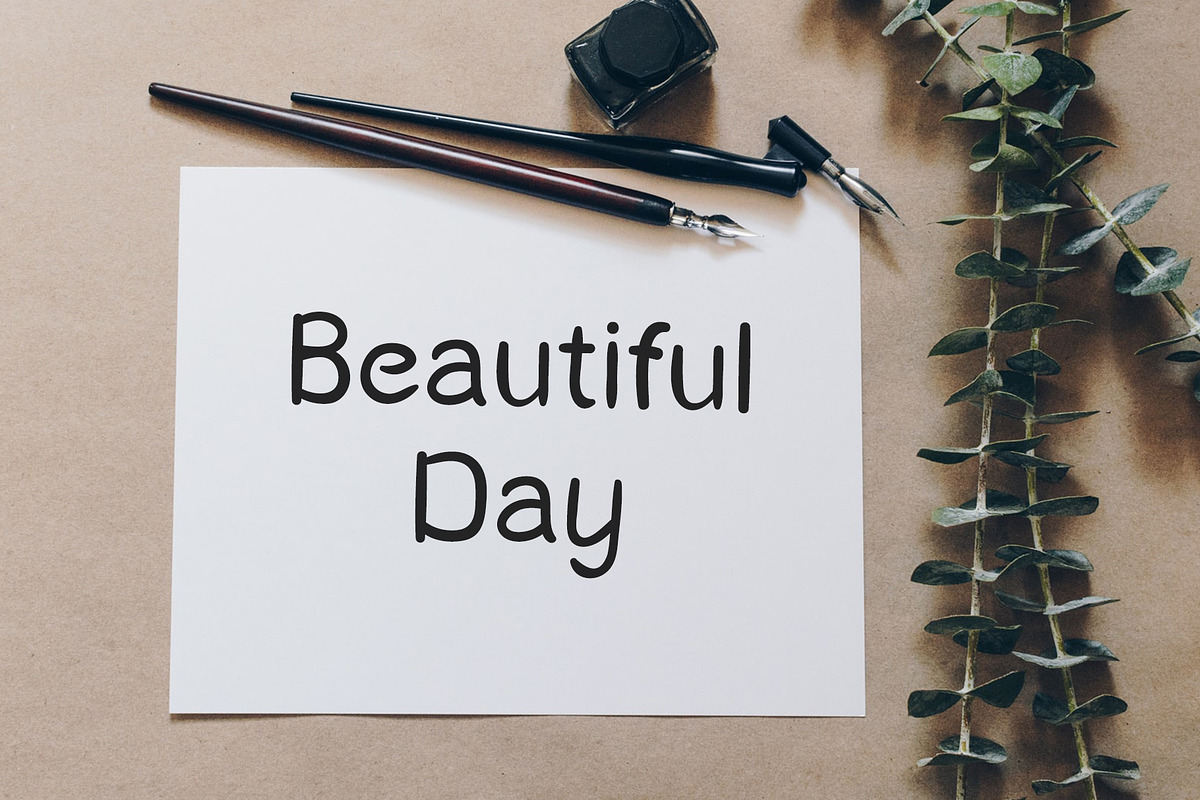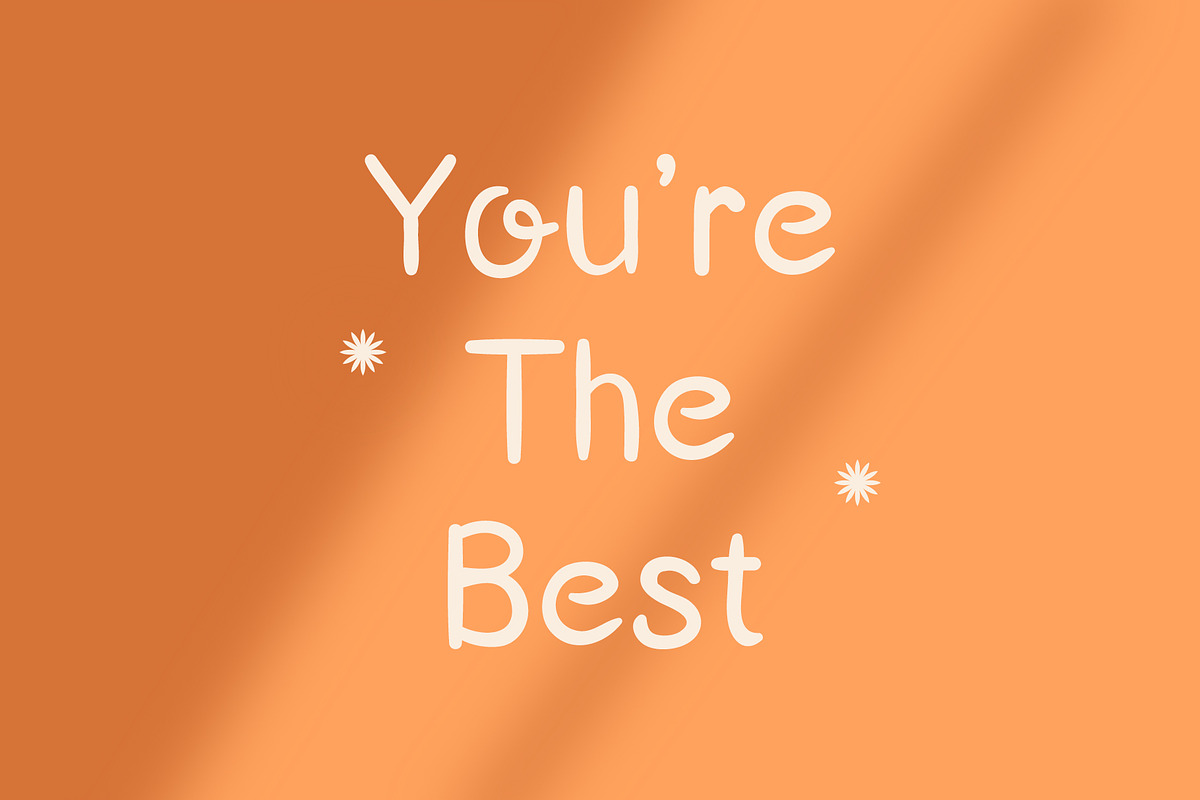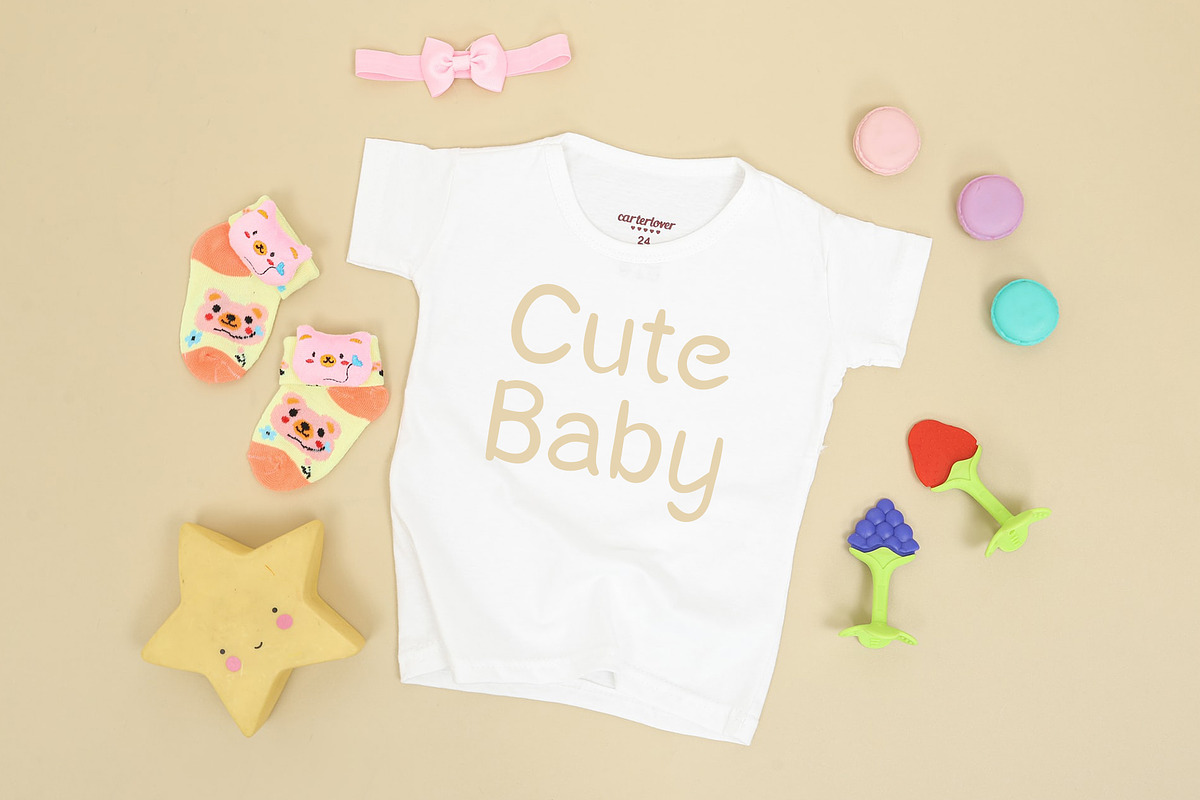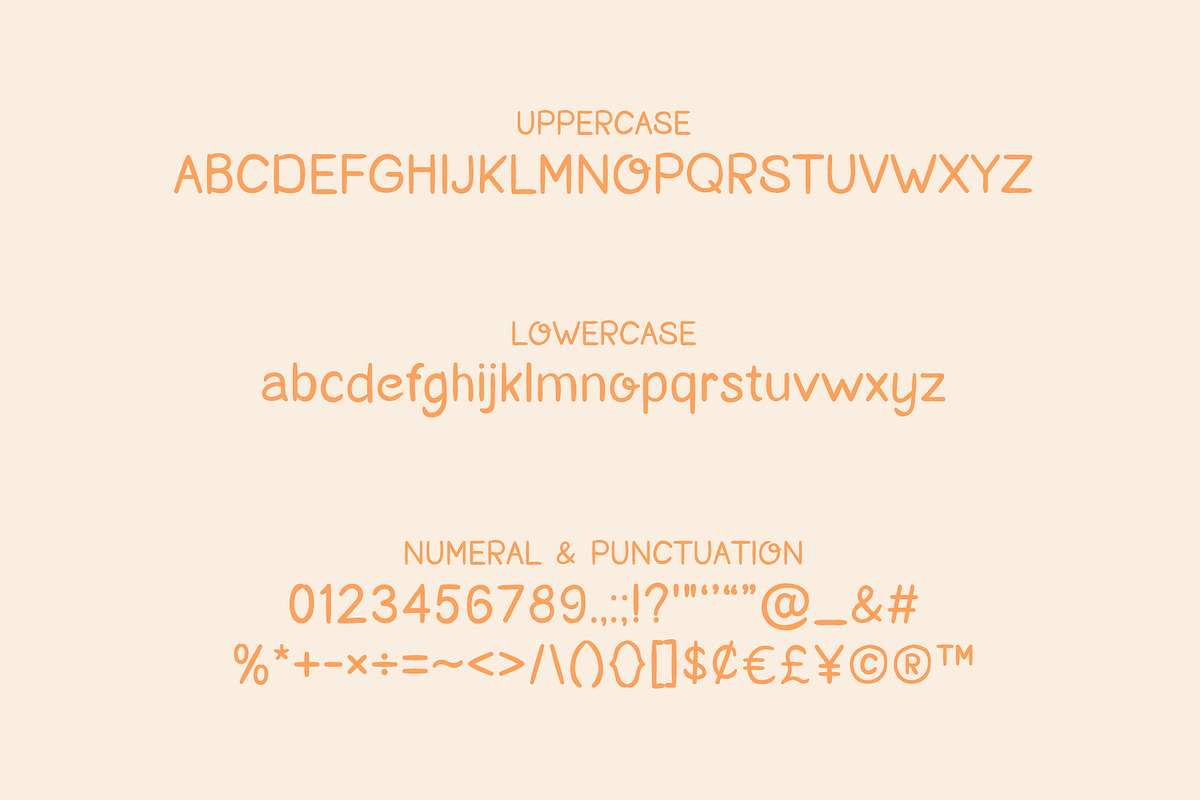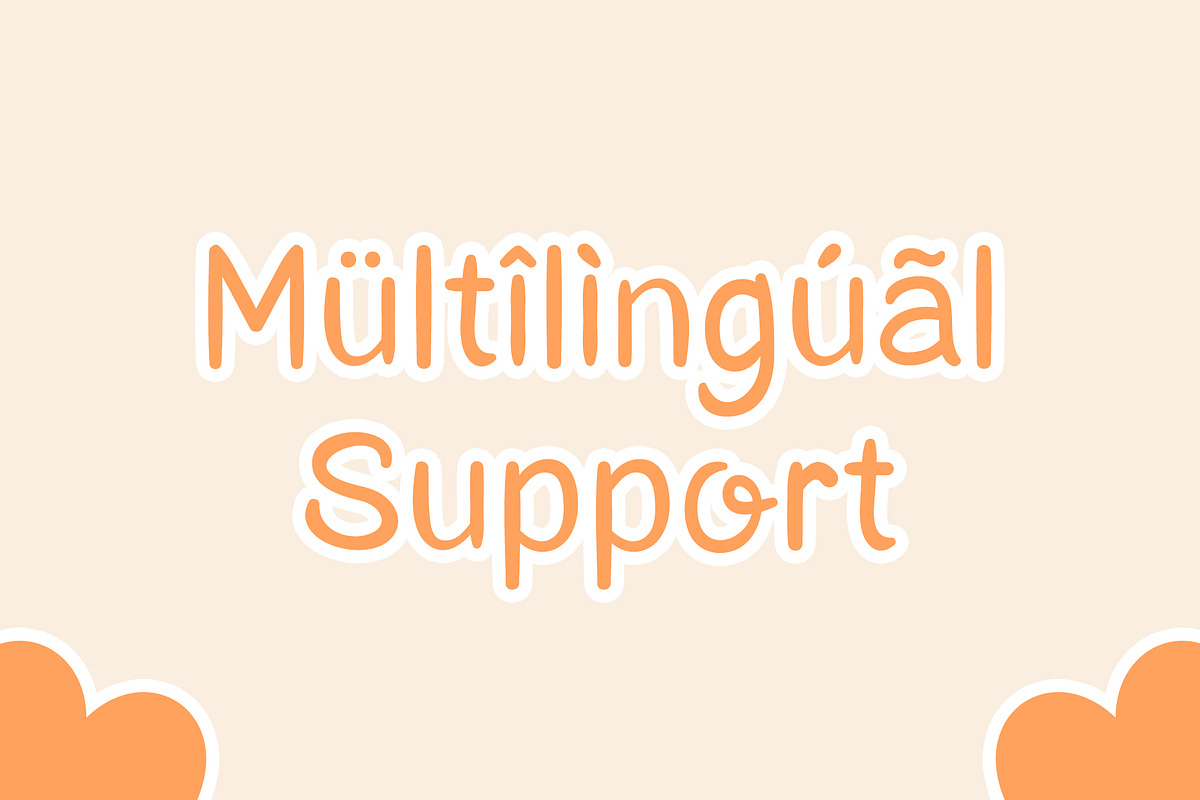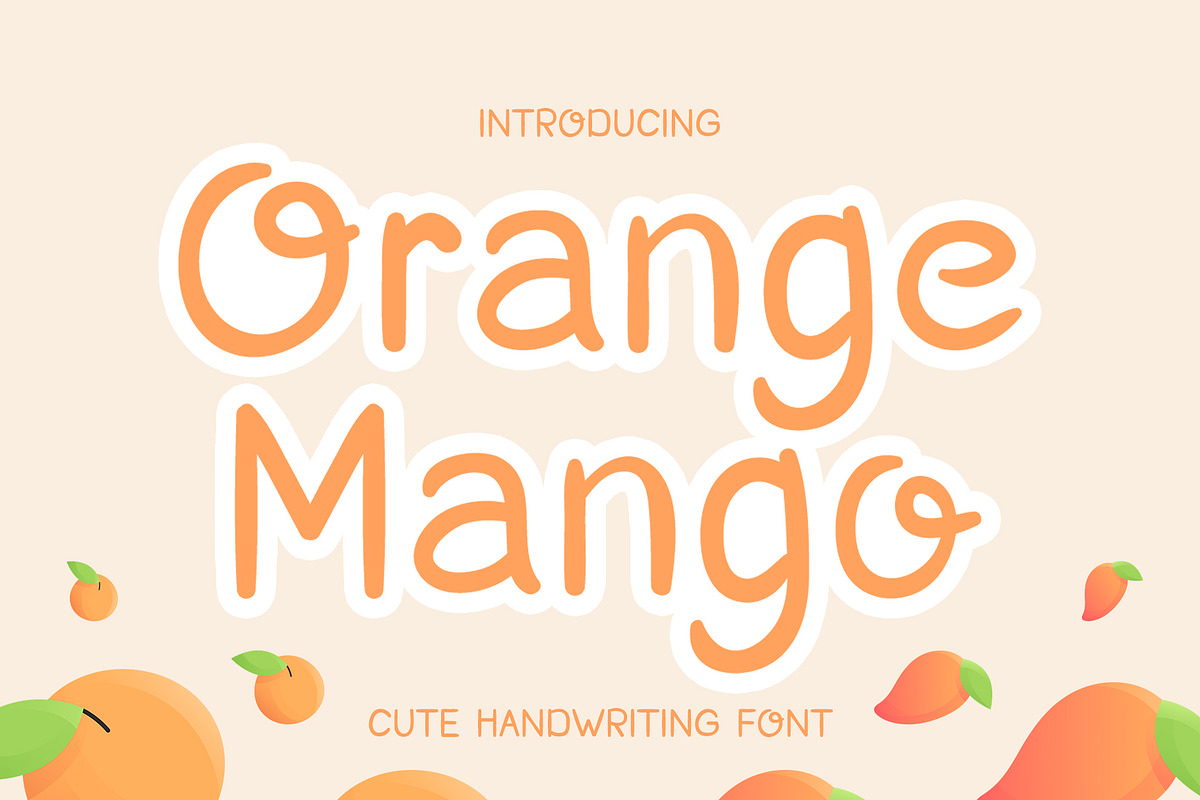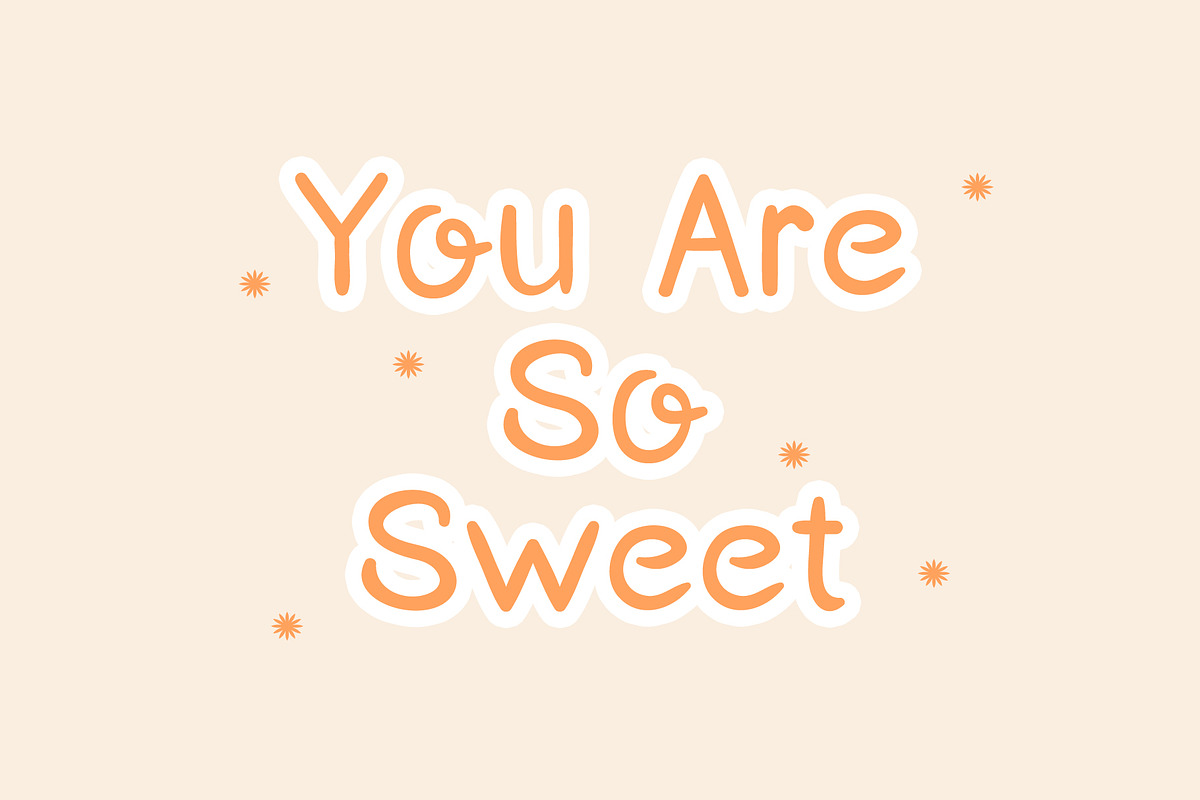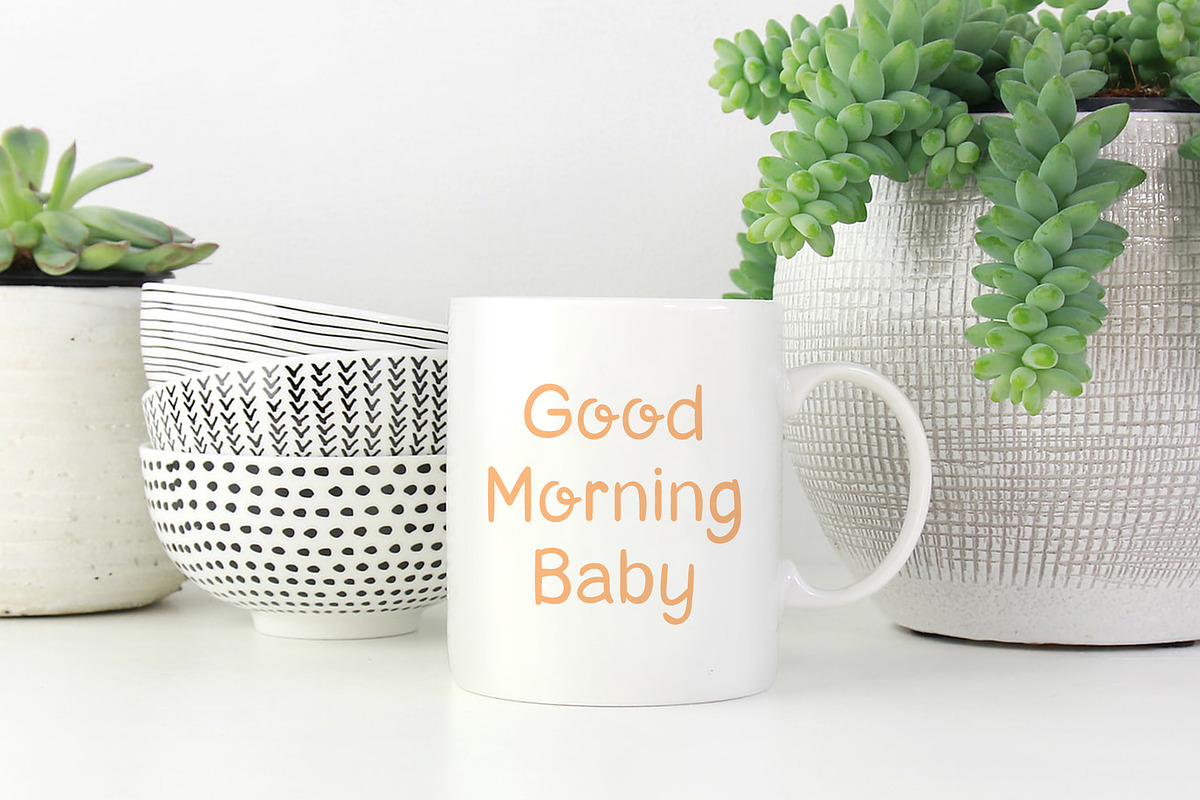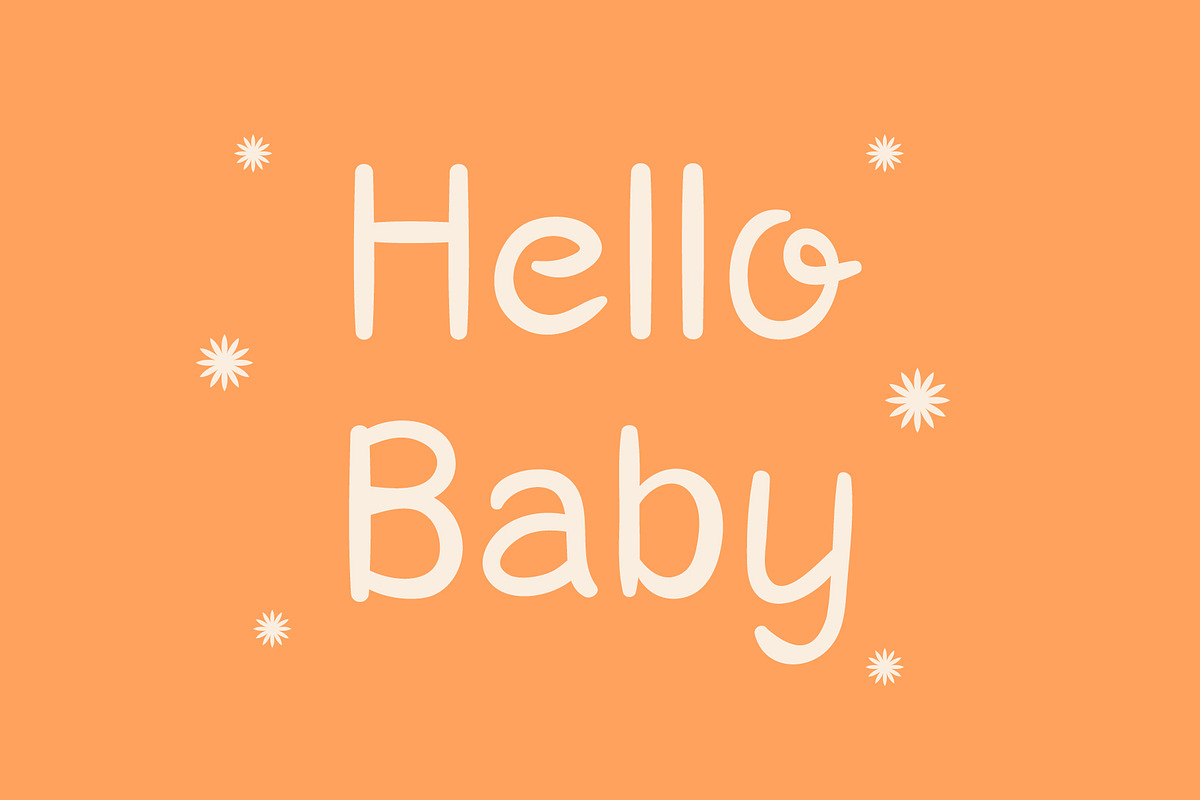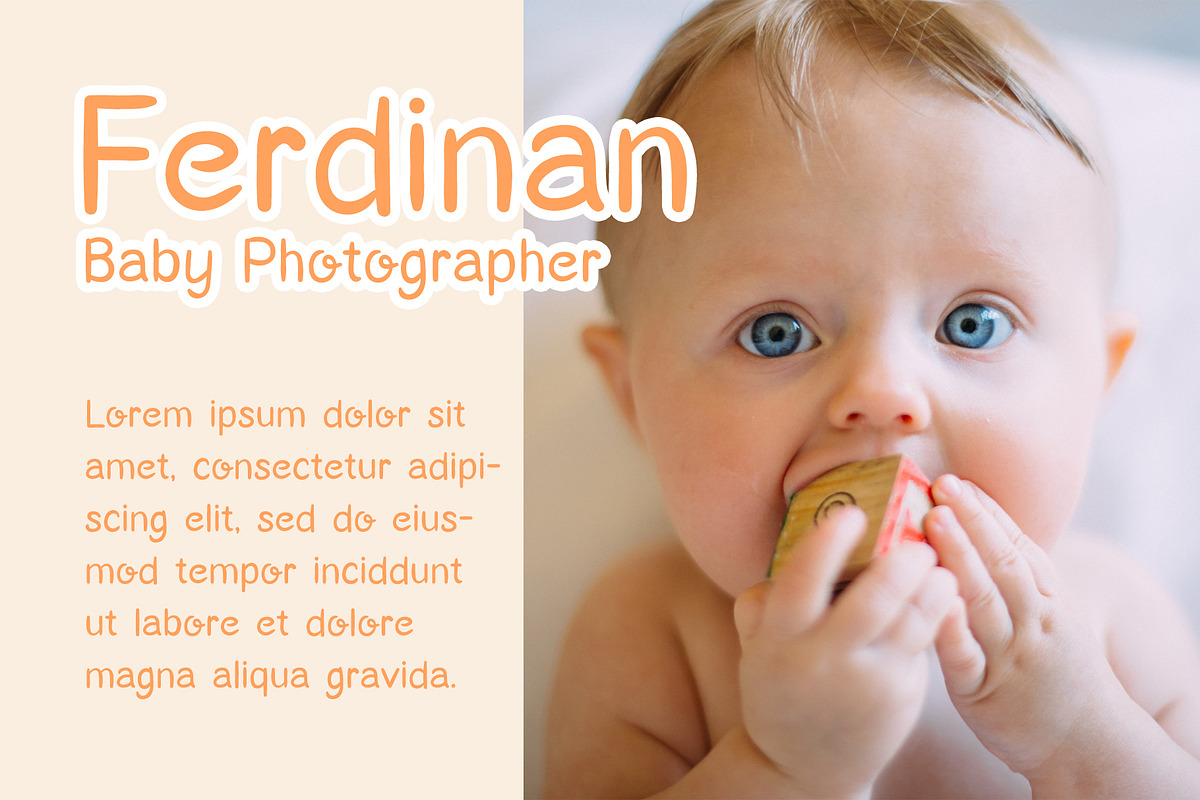
Orange Mango | Cute Handwritten
Hi guys. how are you? this time I will introduce the font "Orange Mango".
Orange Mango is a handwriting type font that is suitable for children's or feminine themed logos, websites, children's clothing designs, children's companies, and others.